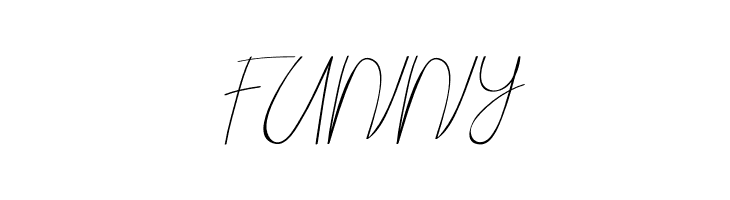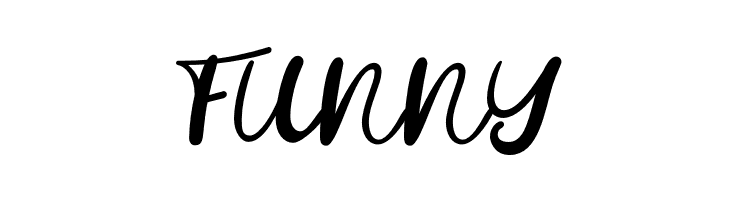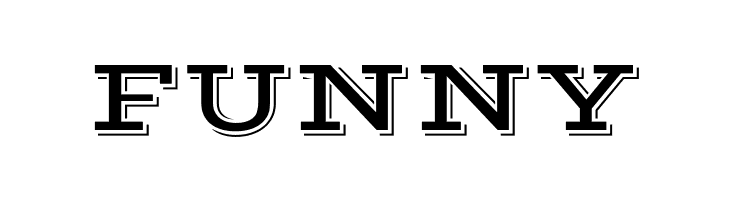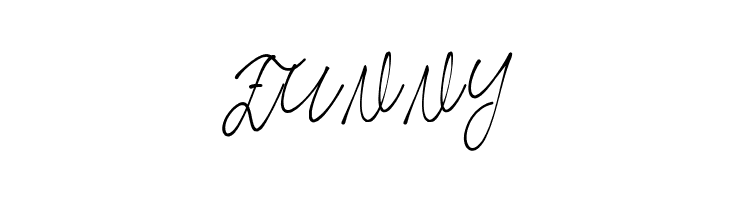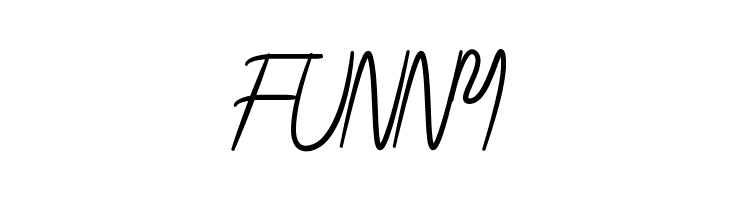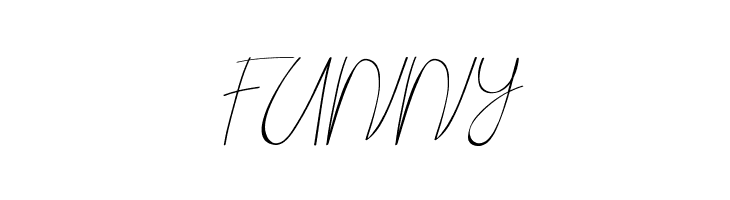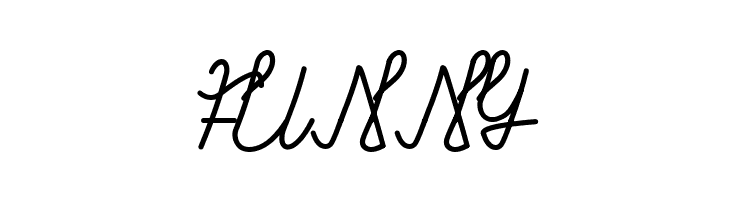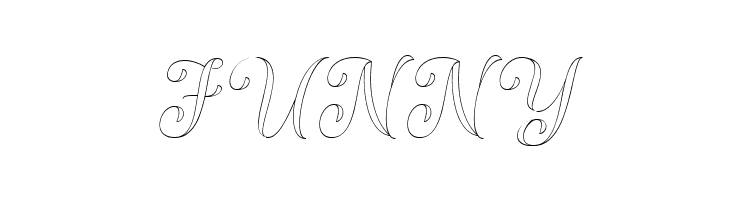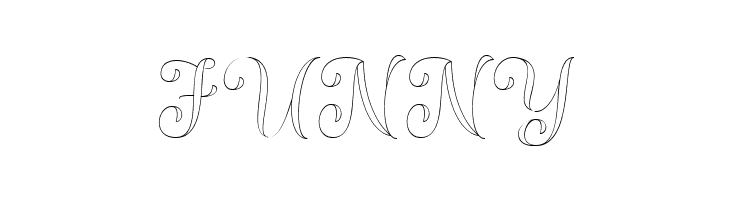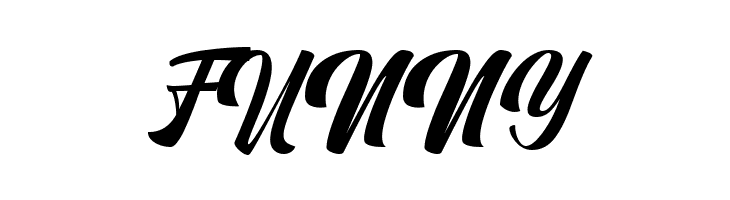
A delicate and elegant script font with thin, flowing lines and subtle flourishes.
An elegant, thin script font with flowing, decorative curves.
A lively and elegant script font with flowing, connected letterforms and moderate contrast.
A dynamic, brush-stroke font with an artistic and expressive style.
An elegant and ornate script font with intricate flourishes and flowing letterforms.
An elegant script font with smooth, flowing strokes and a handwritten feel.
A lively, cursive script font with interconnected letters and a natural handwriting style.
A bold, retro-style font with thick, rounded strokes and unique character shapes.
A bold, shadowed font with a vintage, three-dimensional look.
A dynamic, cursive script font with a natural, handwritten style.
A sophisticated script font with elegant, flowing letterforms and high contrast strokes.
An elegant and fluid script font with a cursive, handwritten style.
A bold, cursive font with dynamic strokes and a handwritten feel.
A fluid, cursive script font with elegant, interconnected characters and a dynamic slant.
A dynamic, brush-style font with high contrast and fluid motion.
An elegant script font with fluid, natural handwriting style.
A lively and expressive script font with fluid, connected letterforms.
A lively and dynamic script font with fluid, connected letterforms.
A lively script font with flowing, interconnected letterforms and a modern, playful vibe.
A dynamic and flowing script font with elegant, fluid letterforms.
A bold, elegant script font with fluid connections and high contrast.
A bold, flowing script font with elegant, cursive letterforms and decorative flourishes.
A playful, chalk-like font with a textured, hand-drawn appearance.
A classic, calligraphic font with elegant serifs and medium contrast.
A delicate and elegant handwritten script font with flowing lines.
A modern, elegant script font with flowing, handwritten characteristics.
An elegant script font with flowing, cursive letterforms and decorative swashes.
An elegant and fluid script font with interconnected letters.